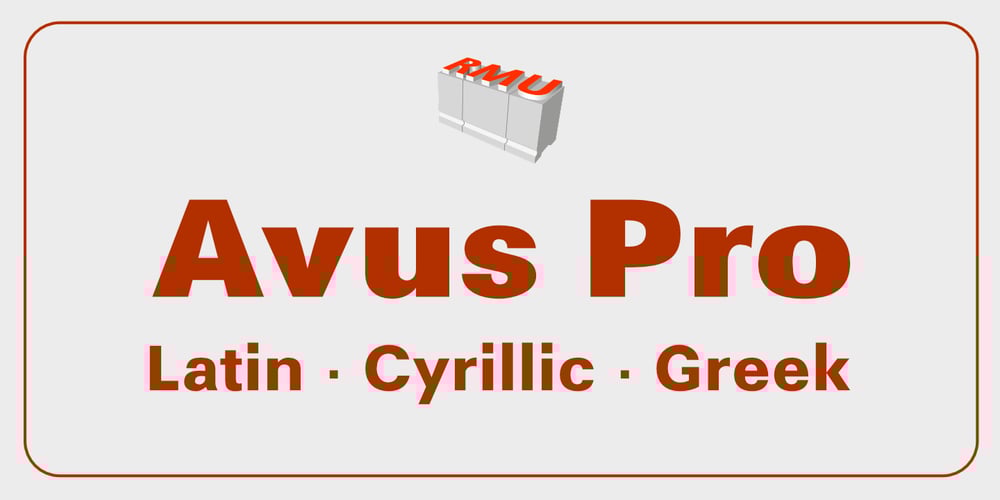
Avus Pro Font Family was designed by Gert Wunderlich, Ralph M. Unger and published by RMU. Avus Pro contains 14 styles and family package options. Gert Wunderlich’s Maxima font family in a new, most extended redesign by RMU Typedesign.